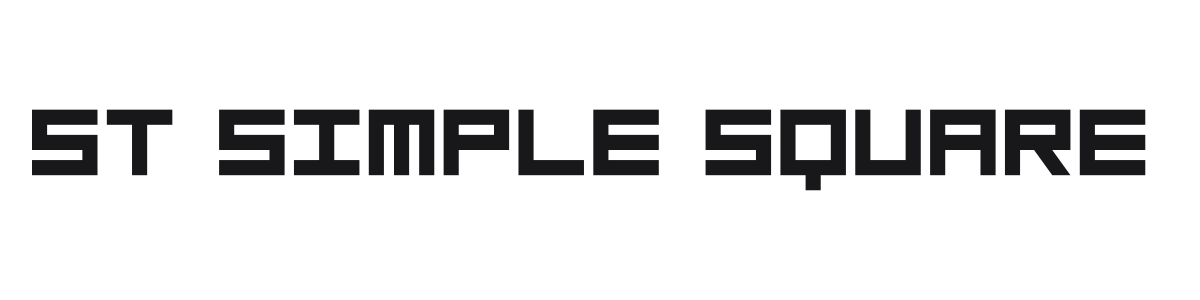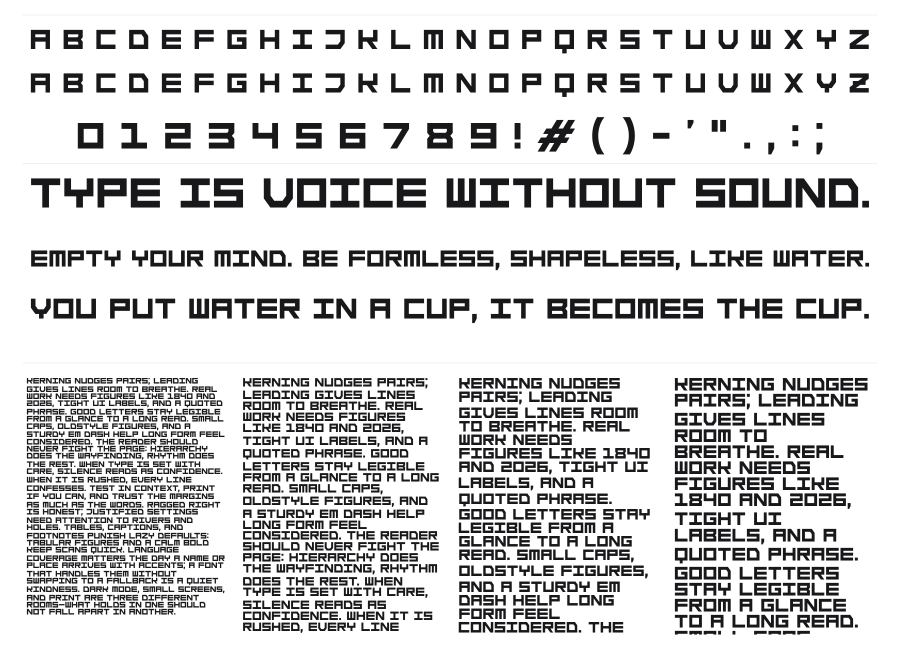
ST Simple Square
ST Simple Square is a bold geometric sans built entirely from square modules with hard right-angle terminals and zero stroke contrast. The design carries a clear retrofuturist and constructivist character, somewhere between Soviet-era architecture and science fiction signage. It works best at large sizes where its rigid grid logic reads as intentional and powerful.